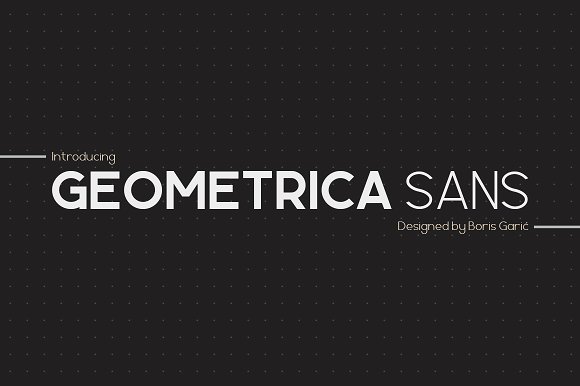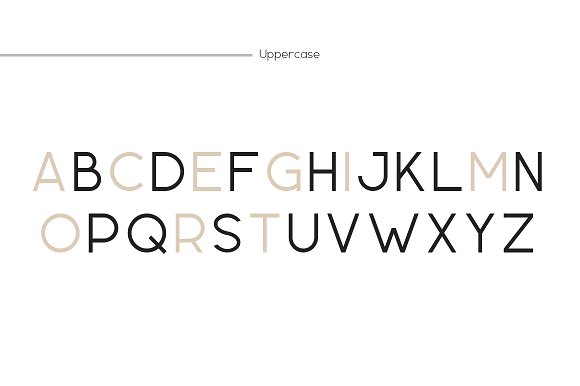
Geometrica Sans Font
About the Geometrica Sans Font
The wait is over! The incredible Geometrica Sans Font is now available for your design toolkit. Geometrica Sans is geometric type family designed for everything sharp and geometric. Each letter is designed using the most basic shapes in geometry.
The font family is available in 6 weight’s:
Geometric Sans Thin
Geometric Sans Light
Geometric Sans Regular
Geometric Sans Medium
Geometric Sans Bold
Geometric Sans Black
Language support – Russian, Central European, Cyrillic, Latin and more.
Geometrica Sans’s strong geometric structure makes it ideal for headlines, logos, and short, impactful text in branding materials and posters. Its clean lines also translate well to minimalist packaging design where clarity is key. However, its stark geometry makes it less suitable for body text or lengthy paragraphs; the uniformity can strain readability over longer passages. Avoid using it in user interfaces requiring high levels of legibility at smaller sizes.
The font possesses a bold, modern personality. To complement this, consider pairing Geometrica Sans with a warmer, more organic serif like Playfair Display for a sophisticated contrast, or a playful script font like Pacifico for a more approachable feel. A neutral sans-serif like Open Sans can also provide a balanced counterpoint, offering readability for supporting text.
For a truly modern aesthetic, pairing it with a geometric sans-serif like Montserrat, in a lighter weight, can create a cohesive yet varied visual hierarchy. Avoid pairing with overly ornate or decorative typefaces, which would clash with its clean lines.
Geometrica Sans Font Usage Examples
Geometrica Sans Font Example